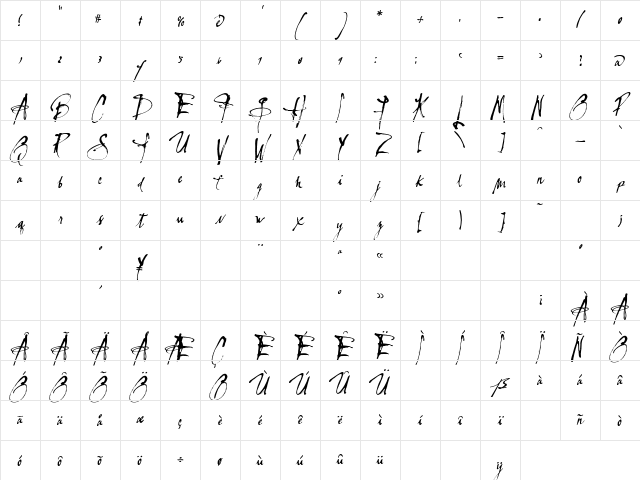
Lassigue DMato Free Font
Lassigue DMato
Style: DMato
Design Context for Lassigue
Lassigue is a composed and adaptable typeface that performs quietly and consistently across a wide range of design contexts.